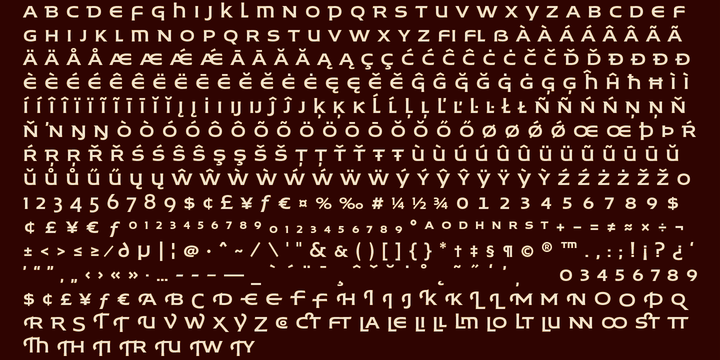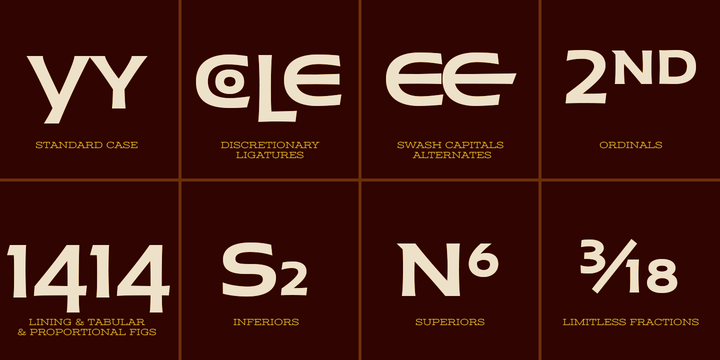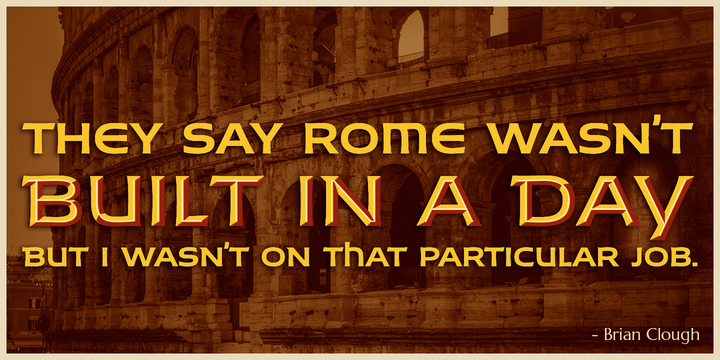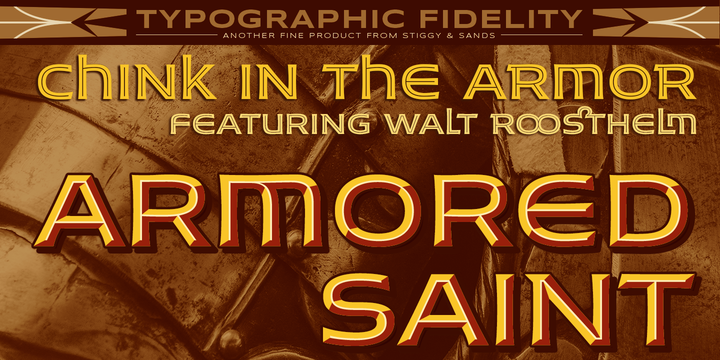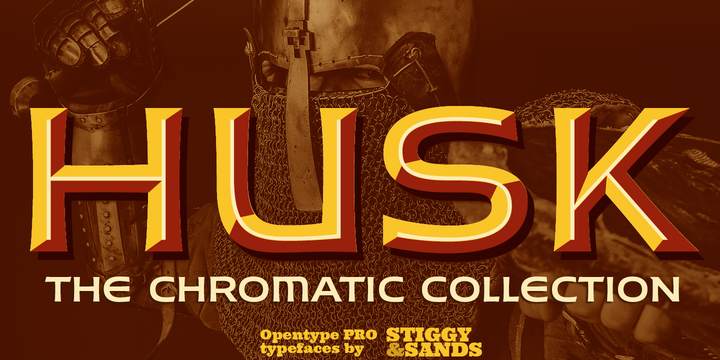
A Flare Serif Family to Rule Them All The Husk Family began as a digitization of a film typeface called Maile by LetterGraphics.
From there, it has evolved to a much more robust character set than its original reference.
With multiple numerals sets, creative discretionary ligatures, as well as Swash Capitals and a few final forms, this gladiator of the type arena cuts through to let your designs shine.
See the 5th graphic for a comprehensive character map preview. More The Husk Family is loaded with features to give you plenty of customisation options: - Regular, Chiseled, and Inline styles that can be used alone or chromatically layered - A mix of specialized Capital letterforms for Caps & Lowercase standard - A Swash feature for Swash Capitals as E & R final forms.
- Stylistic Alternates feature for Lining Numerals, an alternate & and M. - Discretionary Ligatures for a collection of unique ligature arrangements. - A Full set of Inferiors and Superiors for Limitless Fractions - An Oldstyle (default), Tabular, Proportional, and Lining figure sets Approx.
482 Character Glyph Set per font: The Husk Family comes with a glyphset that includes standard & punctuation, international language support, discretionary ligatures, alternate numeral styles, subscript and superscript.